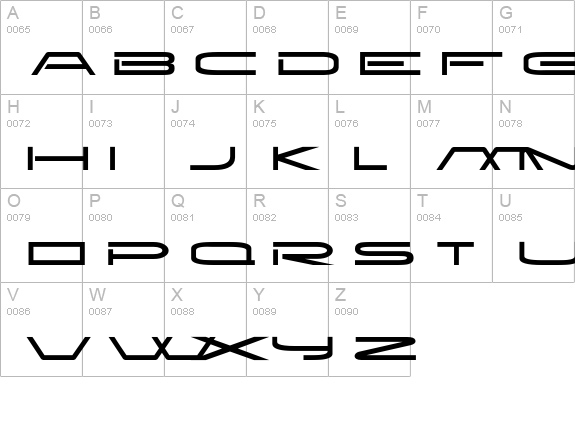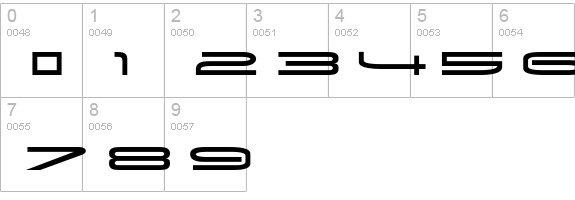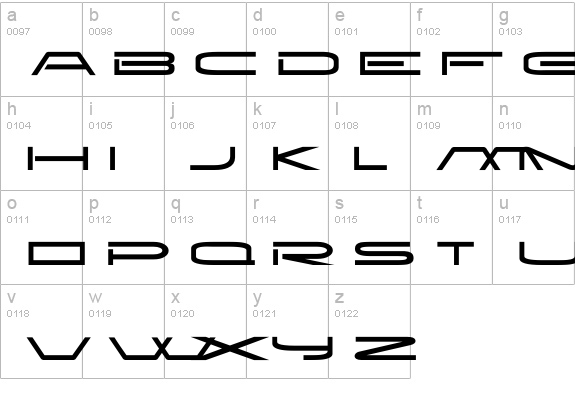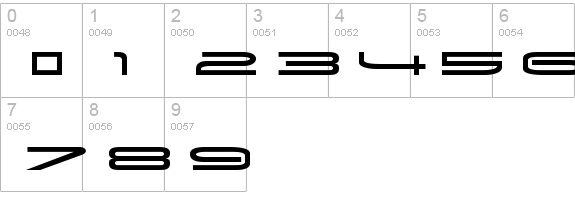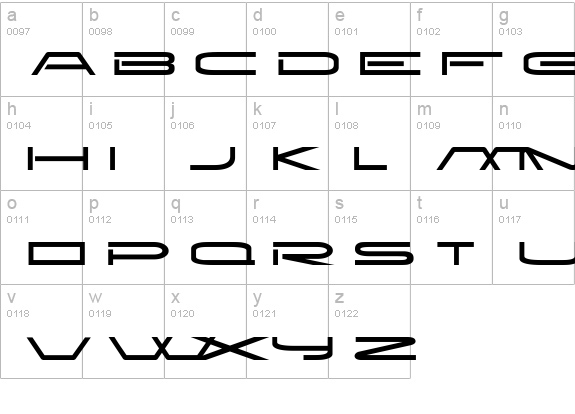
Newbrilliant Font Details
Introducing Newbrilliant font, a versatile and modern typeface that is sure to elevate your design projects to a new level of sophistication. With its sleek lines and elegant curves, Newbrilliant font exudes a sense of style and refinement that is perfect for a wide range of applications. What sets Newbrilliant font apart is not only its stunning aesthetic appeal but also the fact that it is available for free. Yes, you read that right - this exceptional font can be downloaded at no cost from FontsMarket.com, making it accessible to designers and creatives of all levels. Whether you're working on a branding project, a website design, or any other creative endeavor, Newbrilliant font is sure to make a lasting impression. Its clean and contemporary look will help you achieve a polished and professional finish every time. Don't miss out on the opportunity to enhance your designs with the timeless elegance of Newbrilliant font. Download it for free today and let your creativity shine!